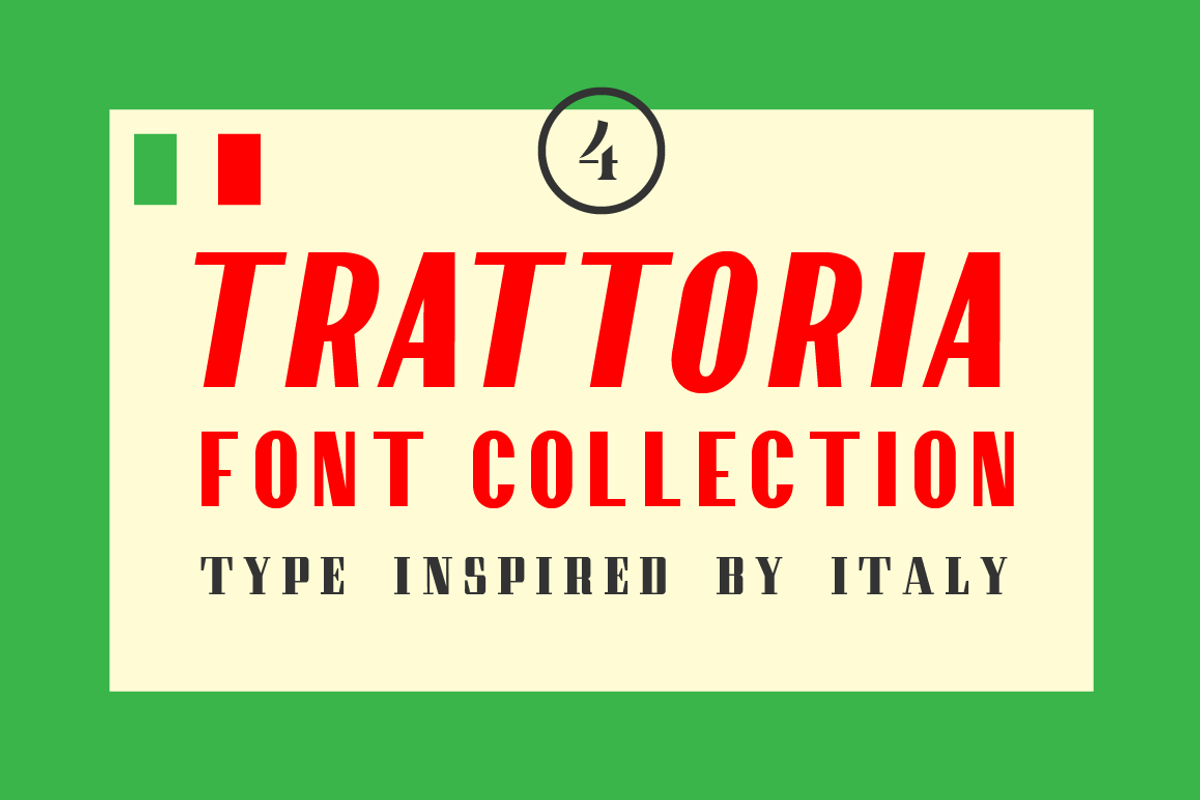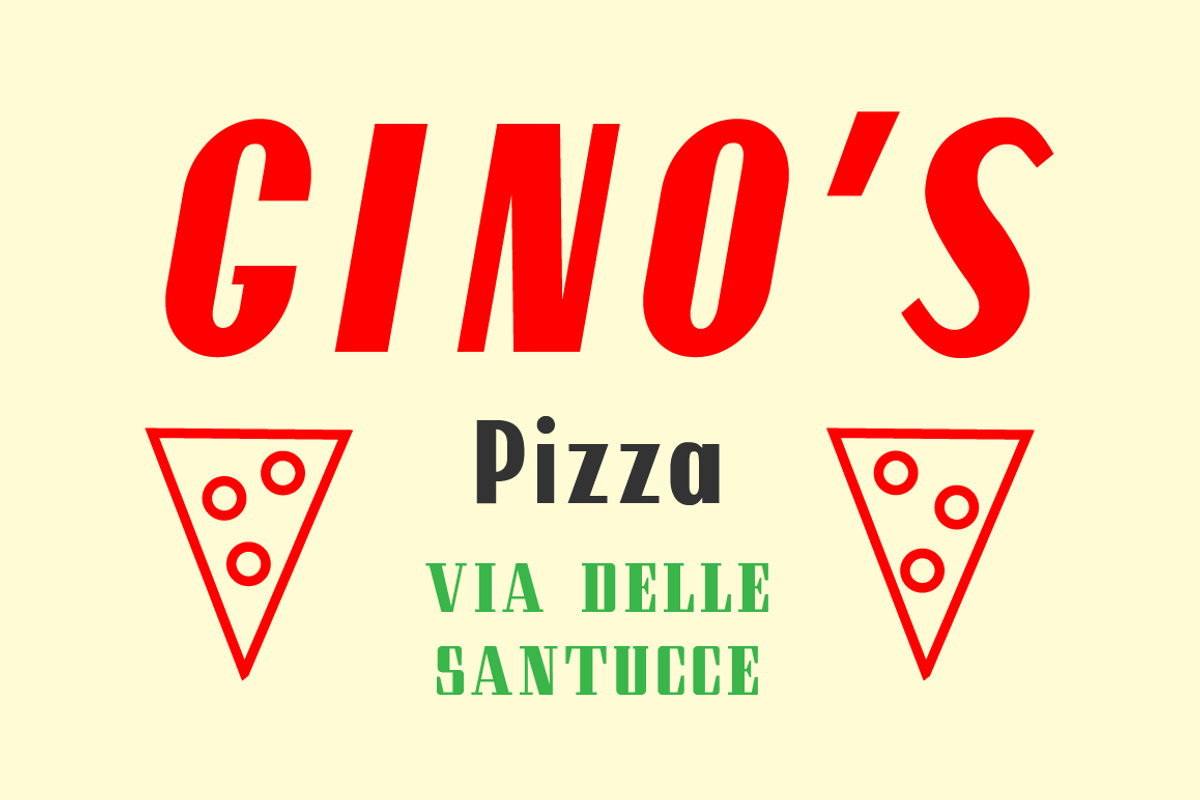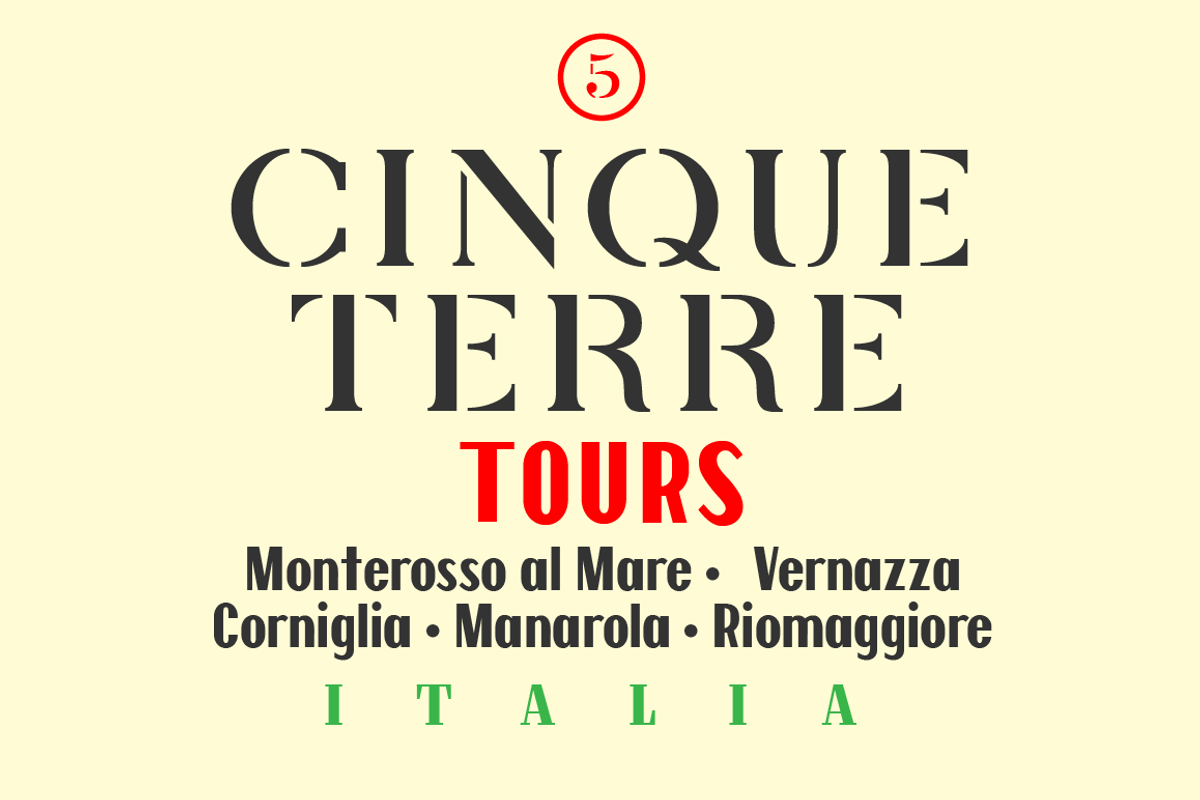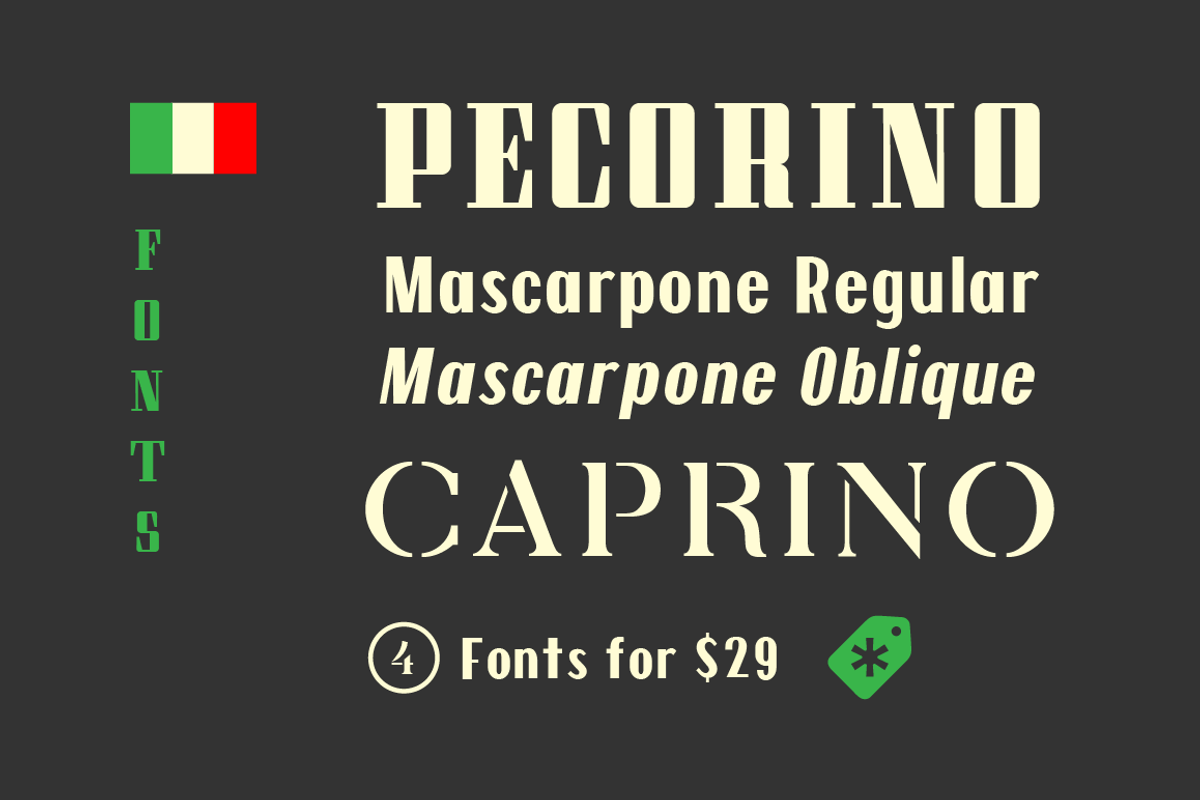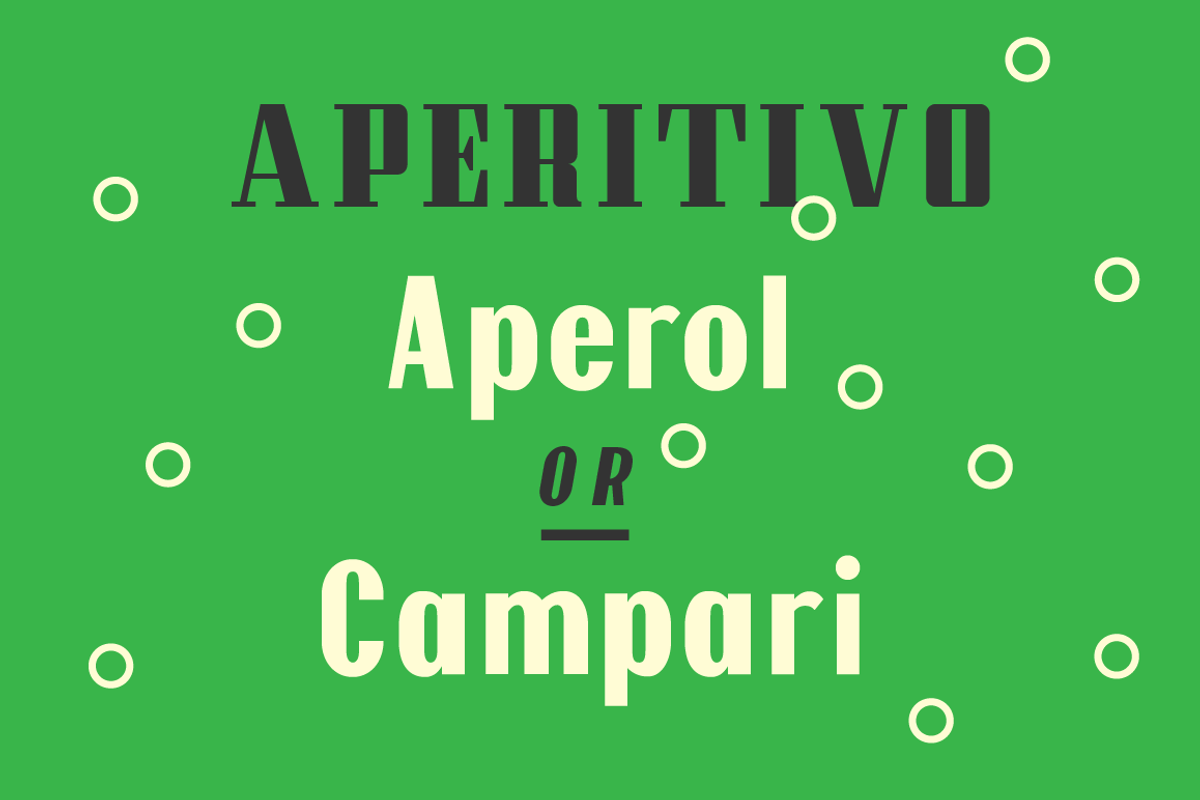
Trattoria Font Collection
Trattoria Font Collection by hudlow is a font selected for branding, posters, packaging, typography.
- The Trattoria Font Collection is includes a high-contrast sans serif, an elegant stencil, and a modular serif — all inspired by Italian sign
- Caprino Regular
- Mascarpone Regular
- Mascarpone Oblique
- Pecorino Regular
Trattoria Font Collection by hudlow fits naturally into Branding, posters, packaging, typography.